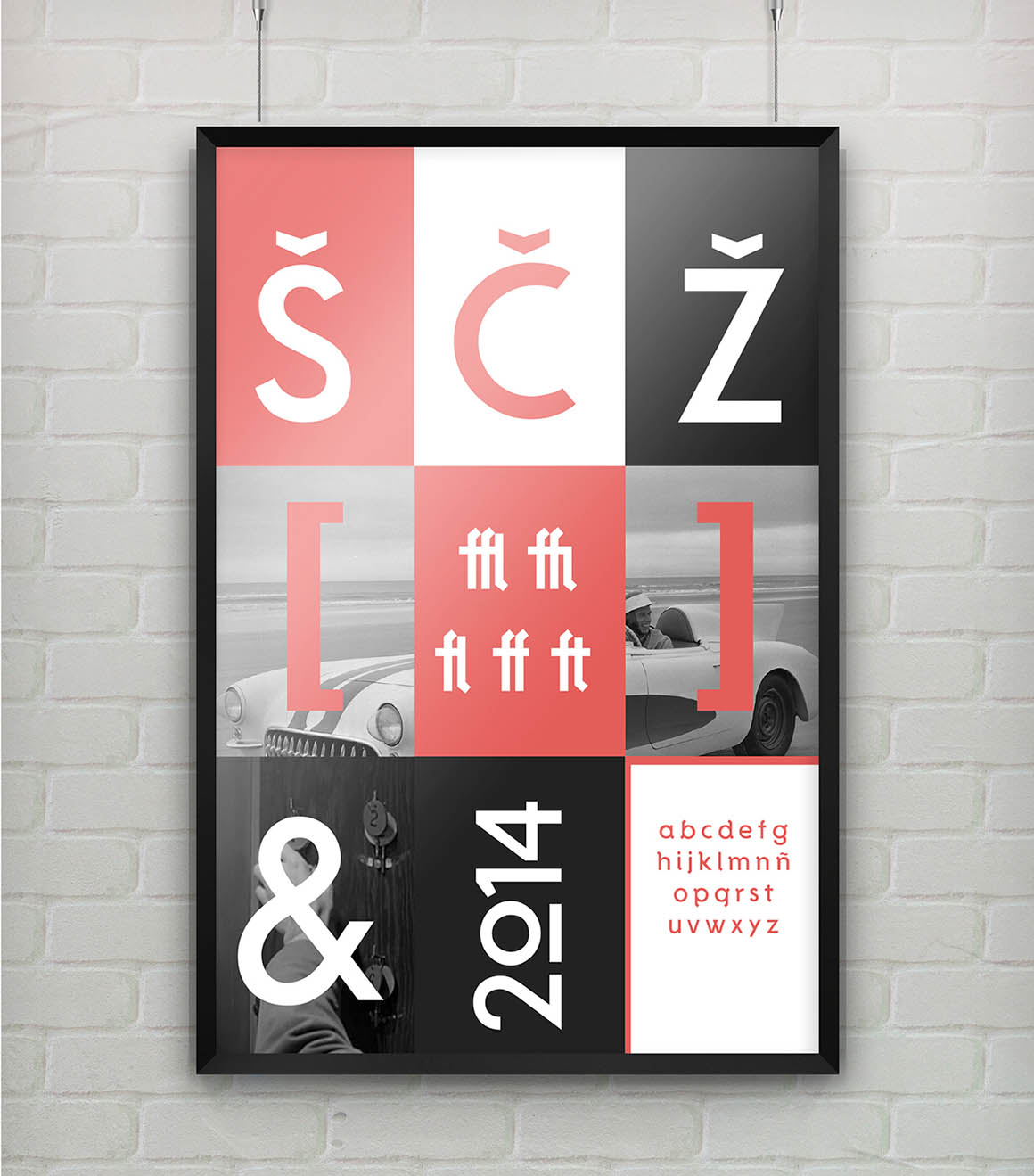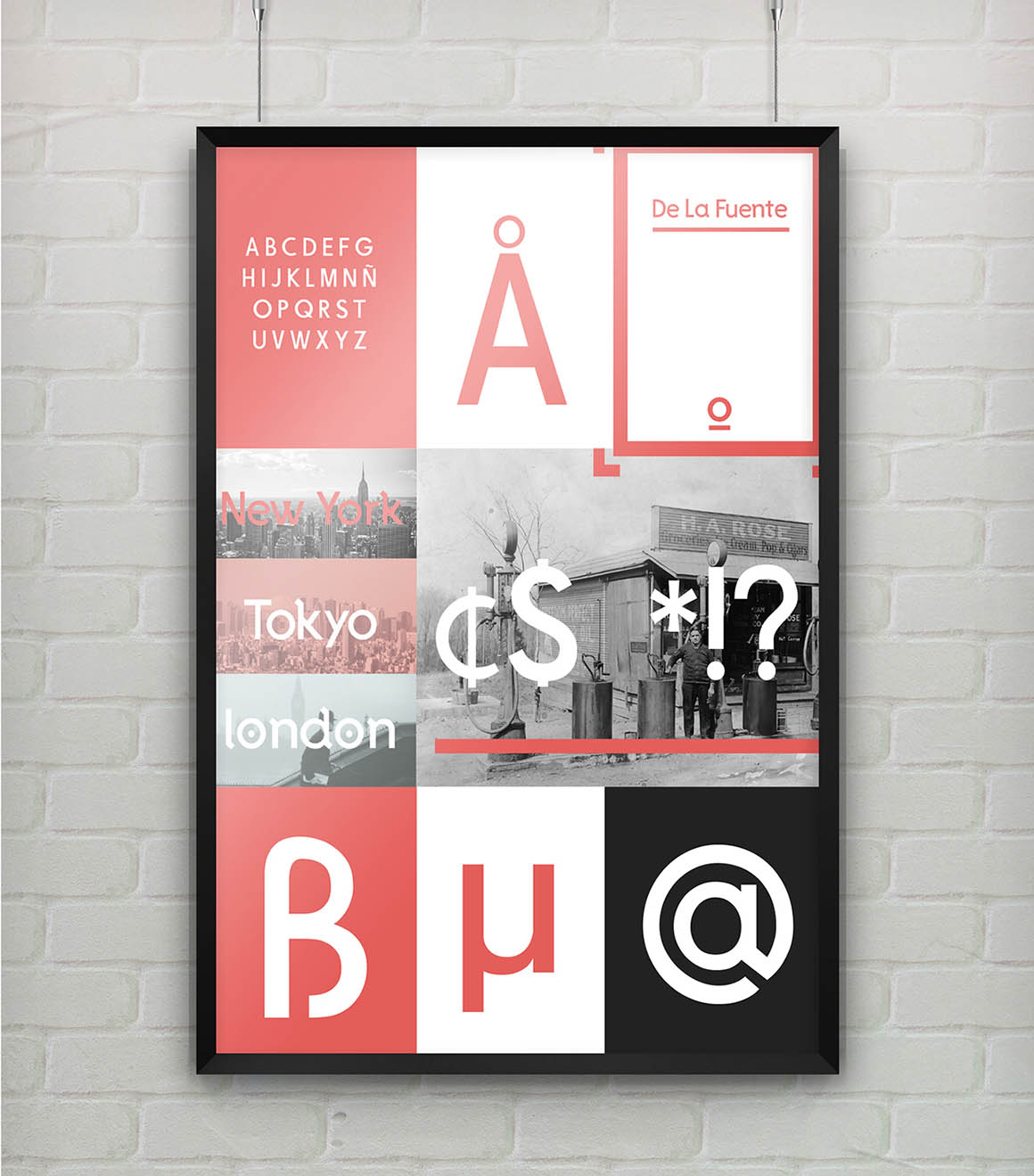
DeLaFuente – Free Modern Font
This cool clean style sans serif custom font is from Alex de la Fuente. Great for your new modern style artworks. Download & enjoy 😉